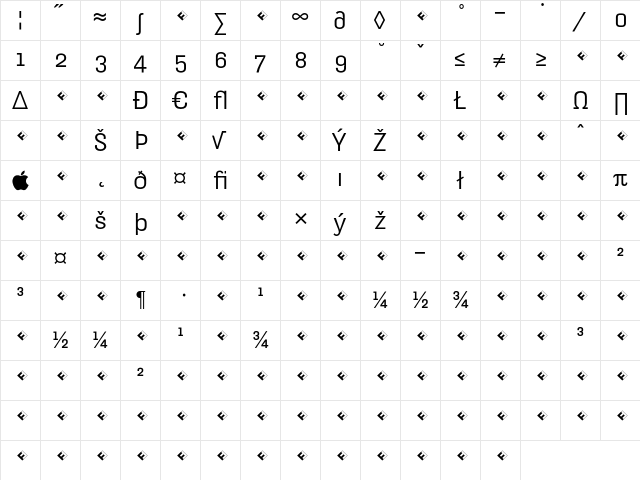
HydraText-RegularExpert Regular
Design Context for HydraText-RegularExpert Typeface
HydraText-RegularExpert offers clean, dependable letterforms without strong stylistic allegiance, making it a practical choice for designers who need flexibility.